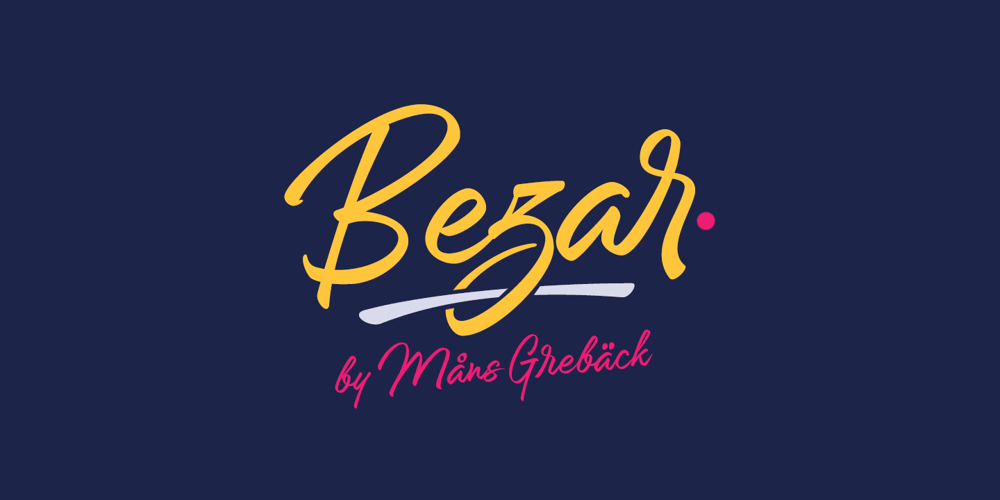
Bezar Font Family was designed by Måns Grebäck and published by Mans Greback. Bezar contains 1 styles and family package options. Bezar is a wild brush script font drawn and created by Mans Greback in 2020. A handwriting of extreme speed, this typeface will give your graphic project both the action and the character to stand out. Use it for whimsical headlines, a product logotype or anywhere where a bright-spirited, flowing script could lift the layout. Its multiple alternates and ligatures makes for a customizable, non-static typeface. Use [ ] { } _ anywhere in a word to create a swash.Example: Ham}burgThe font has extensive lingual support, covering all European Latin scripts.It contains all characters you’ll ever need, including all punctuation and numbers.